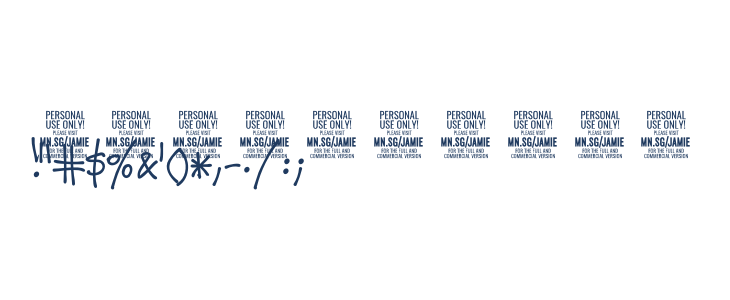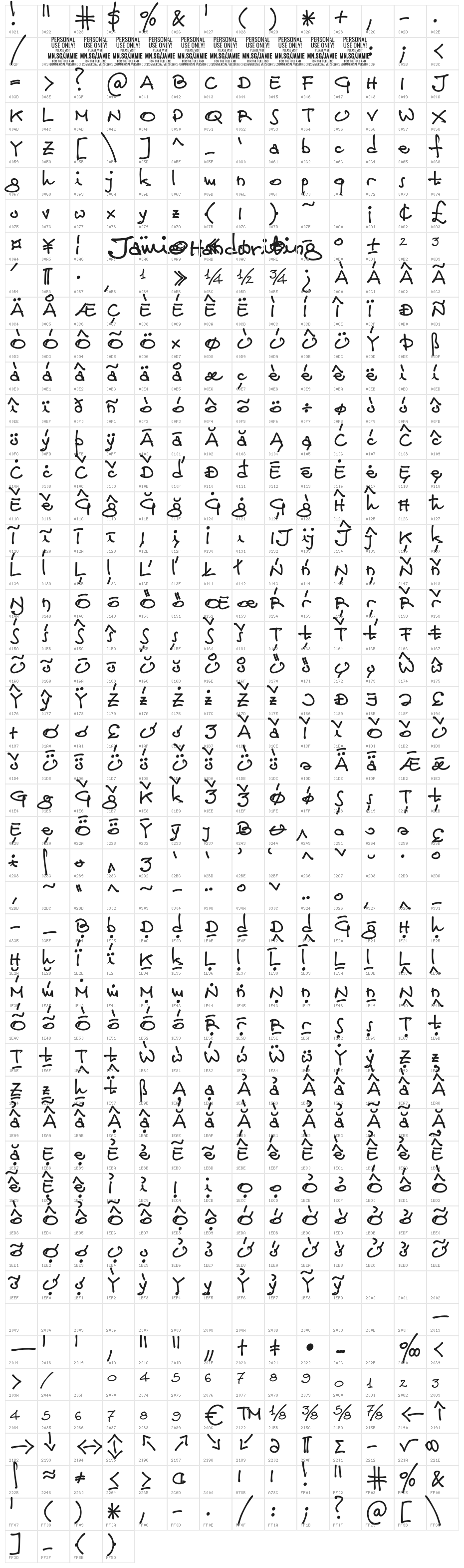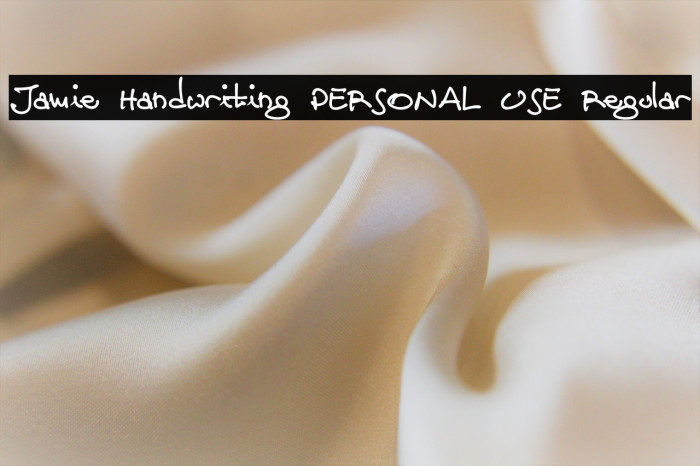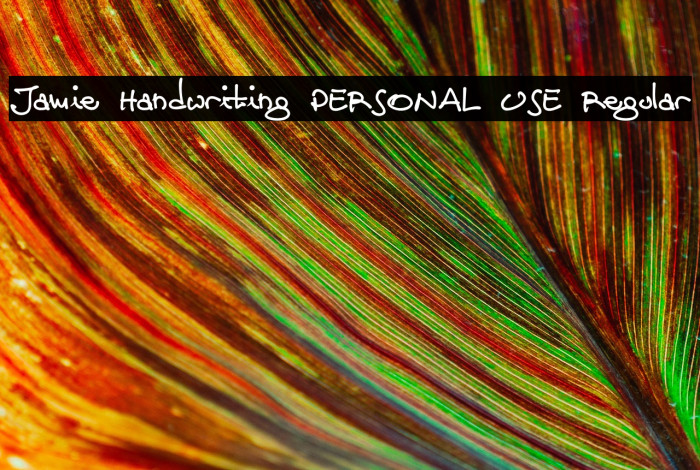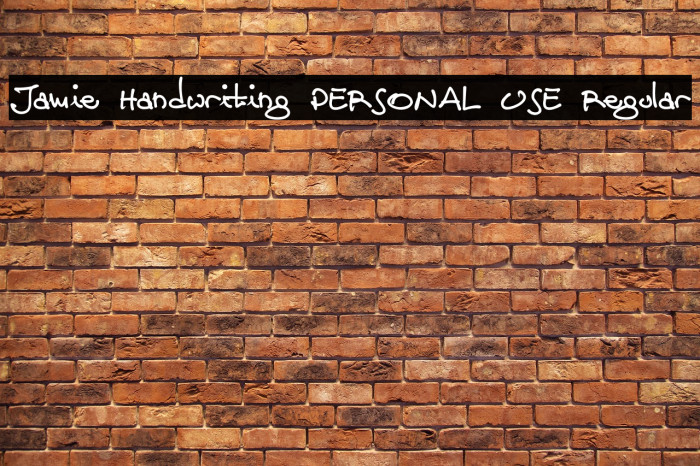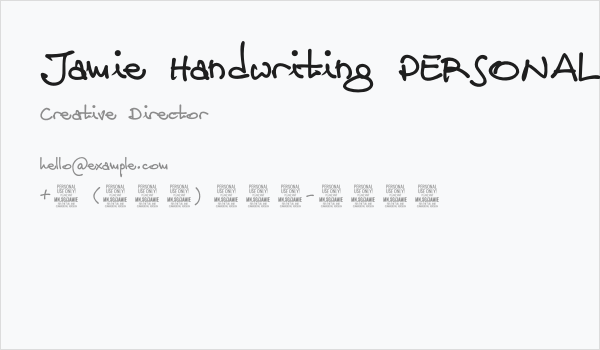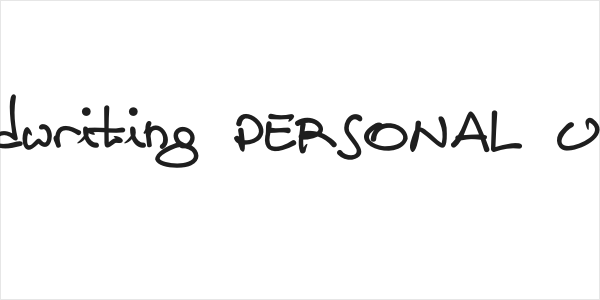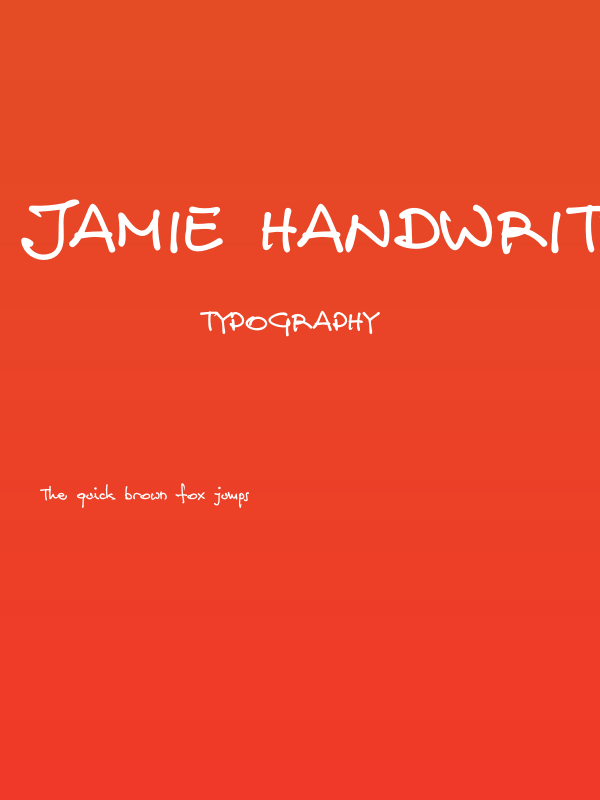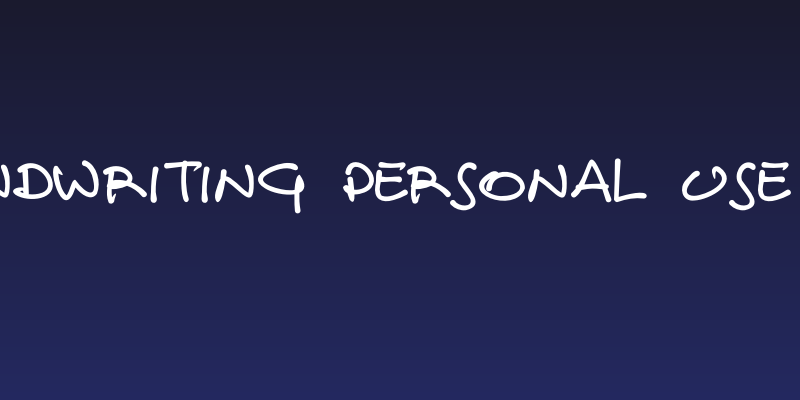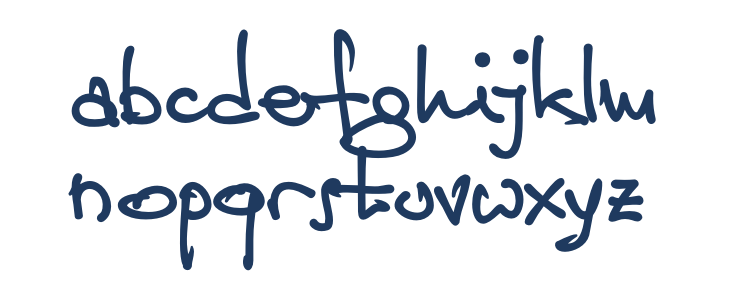
Jamie Handwriting PERSONAL USE Regular Font
Jamie Handwriting PERSONAL USE Regular Description
This font exhibits a playful and casual handwritten style, characterized by its smooth, flowing lines and slightly irregular letterforms. The uppercase letters are bold and rounded, while the lowercase letters maintain a consistent fluidity, giving the text a natural, organic feel. The characters are closely spaced, enhancing the cohesive appearance of the text. The font includes a full set of uppercase and lowercase letters, numbers, and a variety of special characters, making it versatile for different uses. Its informal and friendly aesthetic makes it suitable for projects that require a personal touch.